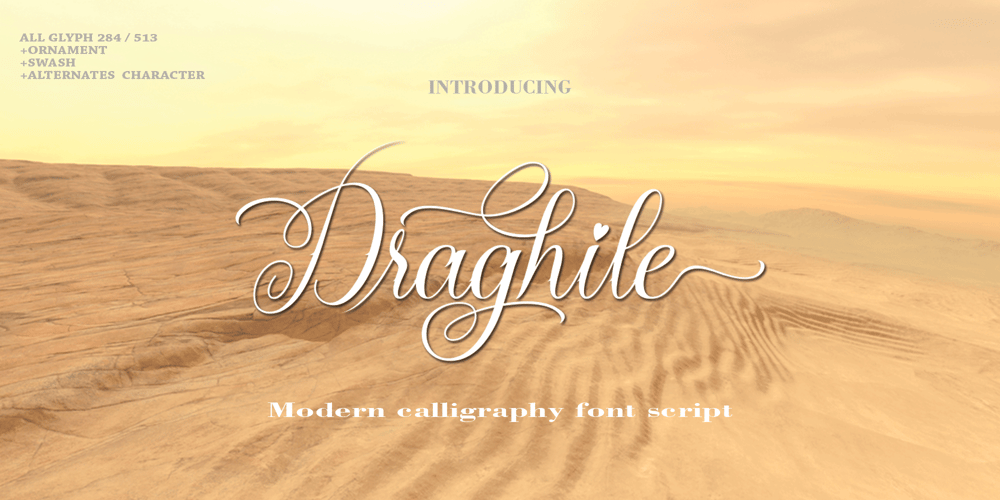
Draghile
Draghile font
Draghile Font Family was designed by Faizal Alfarabi and published by Alfaraby Studio. Draghile contains 1 styles and family package options. Draghile a fonts of stylish calligraphy that have a varied base line, fine lines, classic and elegant touches. Can be used for various purposes. Such as title, signature, logo, wedding invitation, t-shirt, letterhead, nameplate, label, news, poster, badge etc.Draghile displays stylish calligraphy alternate characters. Includes initial letters and terminals, alternatives, ligatures and multiple language support.Programs that support in this font is a Adobe Photo Shop, Adobe Illustrator, Adobe Indesign, Corel Draw and Microsoft Office.OpenType features can be accessed by using open type smart programs such as adobe photo shop, adobe Illustrator, adobe indesign, corel draw and microsoft office. can also be accessed through the character map. Special greetings for all, all of us all smoothly in running the routin.Thank you for your purchase!